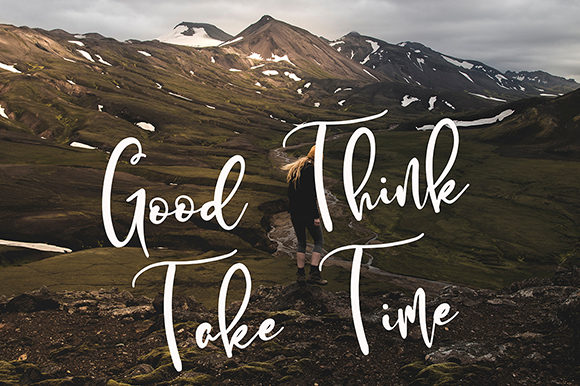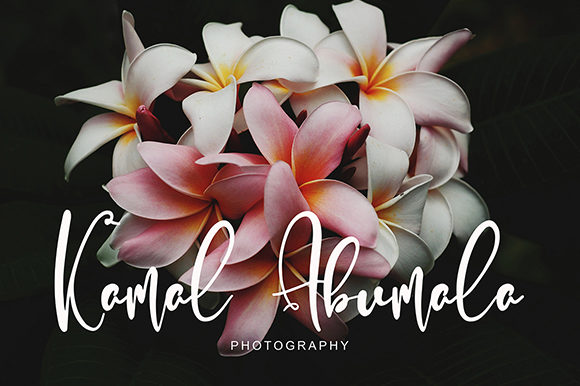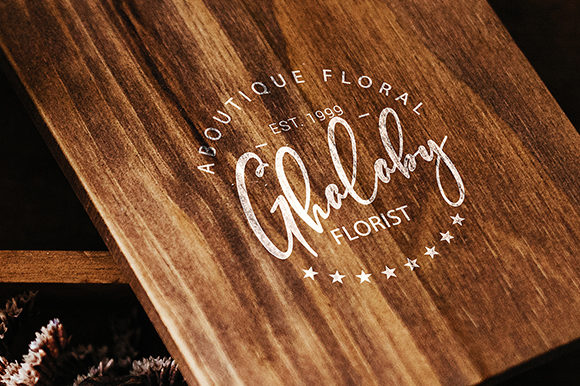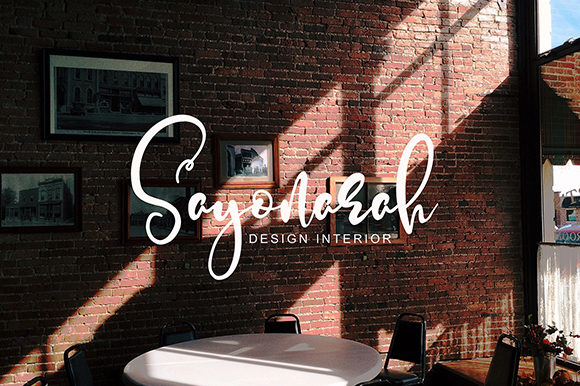
Alcott Ghalliana Font
About Alcott Ghalliana Font
Alcott Ghalliana is a modern and light handwritten font with incredible swashes. Get inspired by its lovely feel.